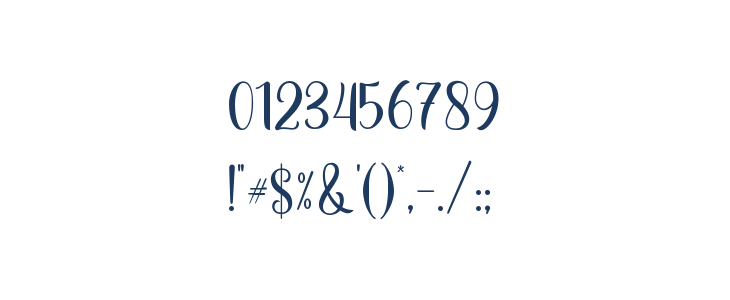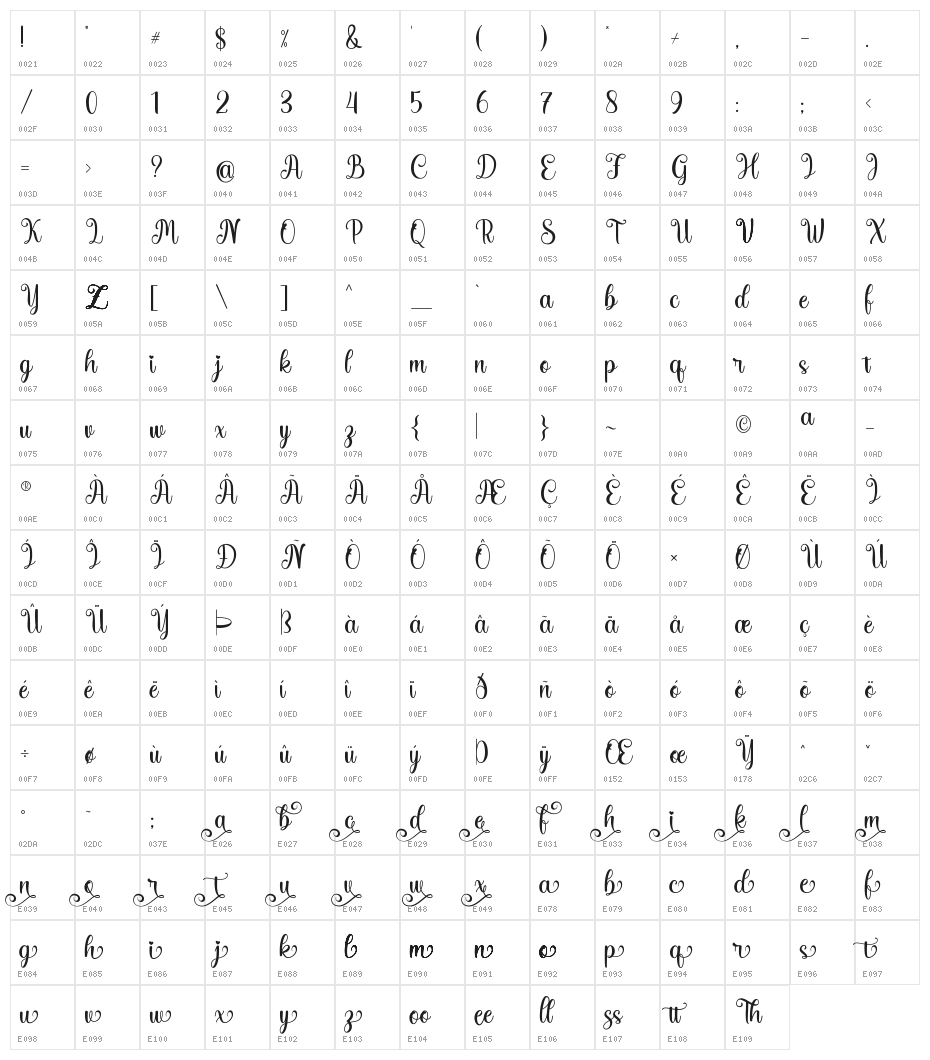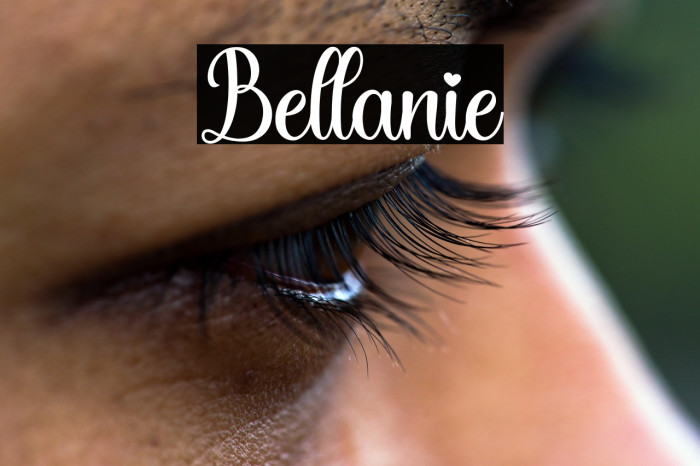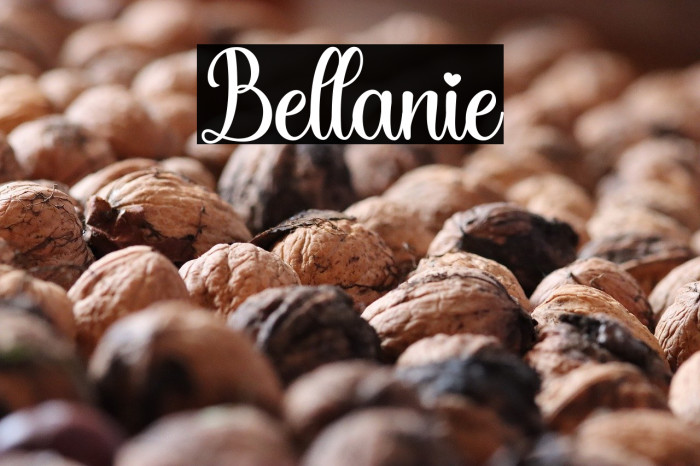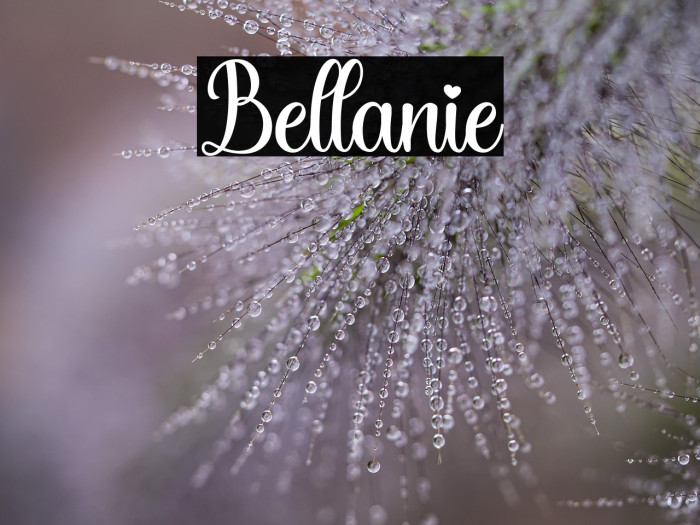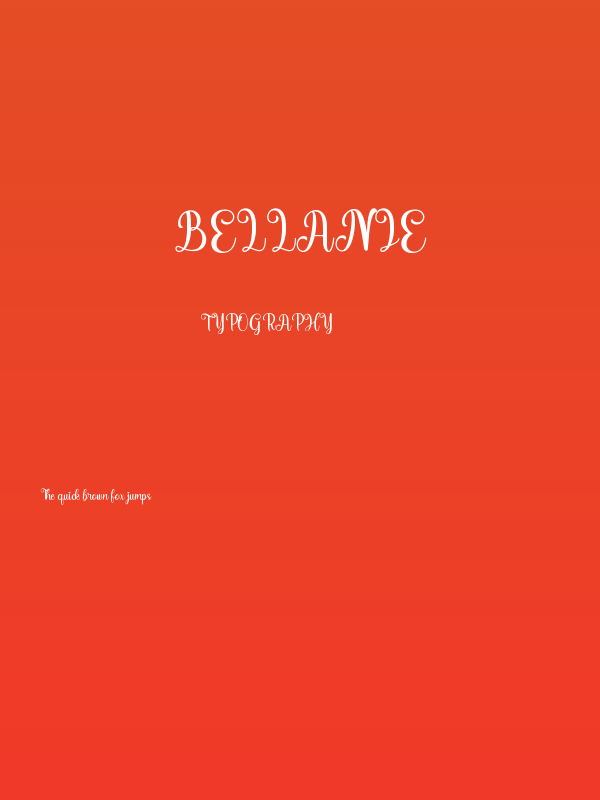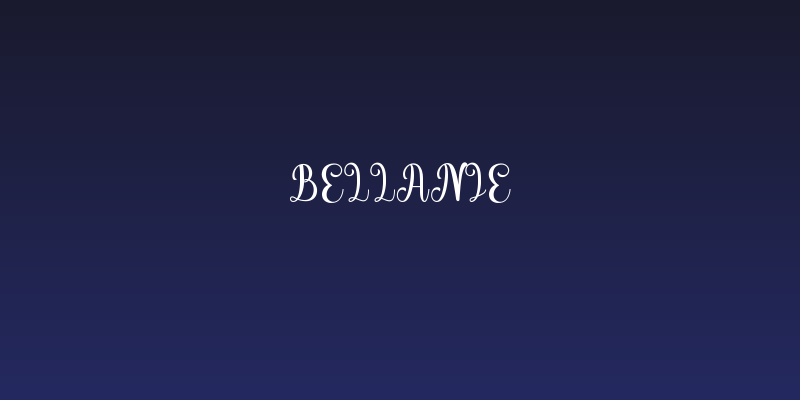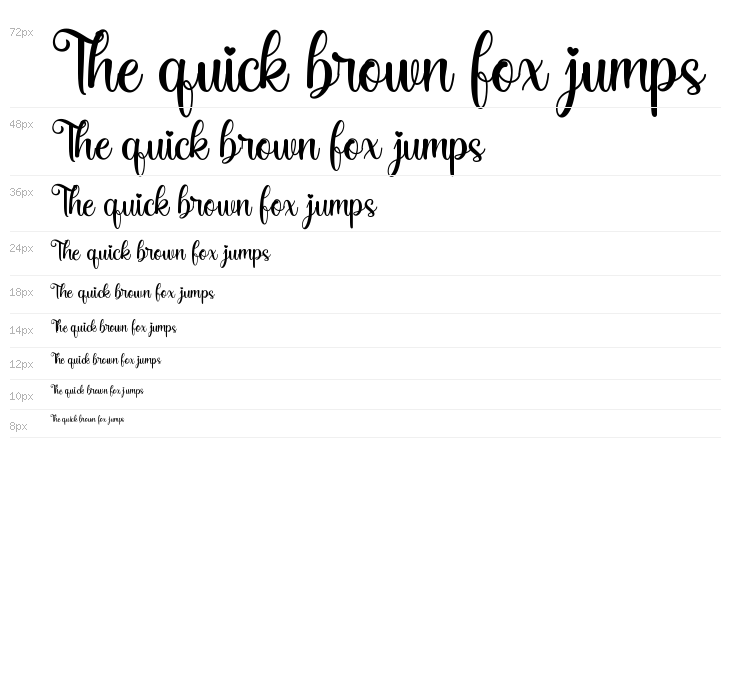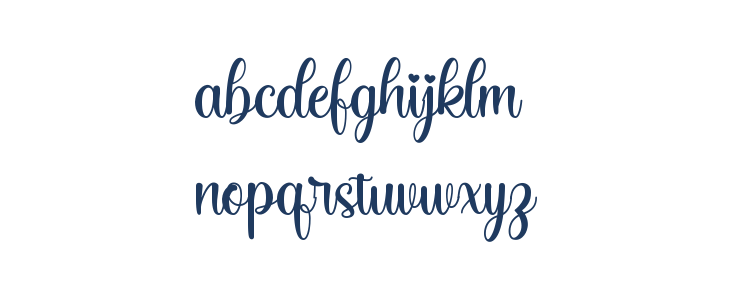
Bellanie Font
Bellanie Description
This font features a playful and elegant script style with flowing, interconnected letters that exude a sense of creativity and sophistication. The uppercase letters are characterized by their ornate loops and swirls, while the lowercase letters maintain a smooth and consistent flow. The numerals are designed to complement the overall style, with a slight flair that adds to the font's charm. Special characters are crafted with the same attention to detail, ensuring a cohesive look across all glyphs. This font is perfect for projects that require a touch of elegance and personality.